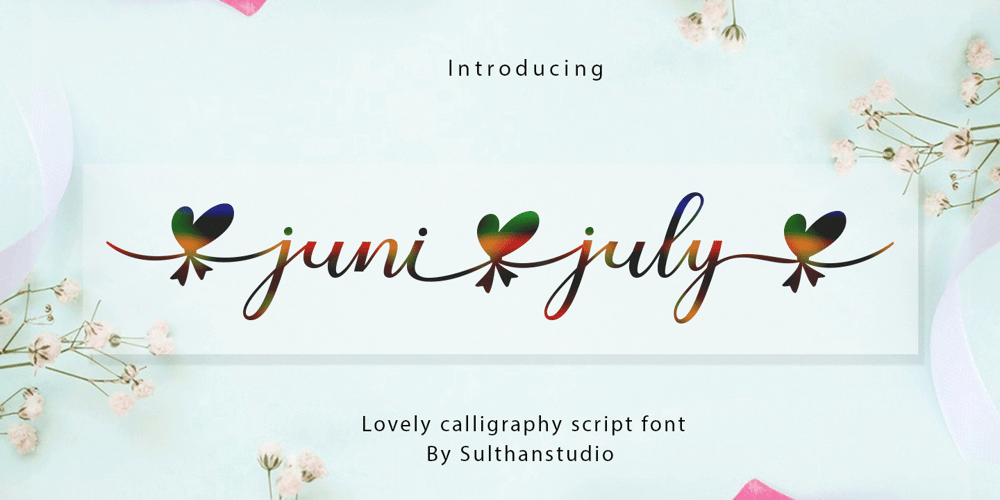
Juni july Font Family was designed by Nasrullah and published by Sulthan Studio. Juni july contains 1 styles and family package options. Juni july – I made this lovely font full of love for my work with heart balloons tied with a ribbonThe swashes are attachable and perfect for any craft needs as well as logos, stickers, wedding invitations, greeting cards and more.